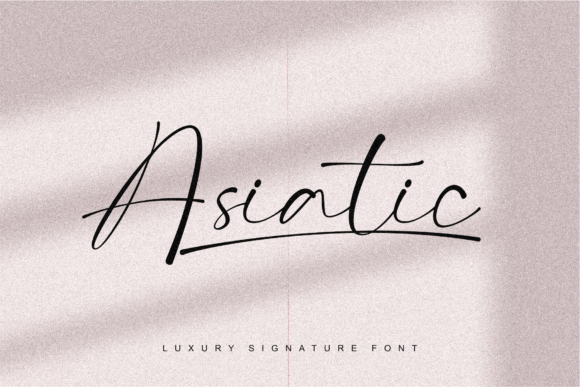
The Elegance of Asiatic Signature Script Font: A Designer’s Delight
I still remember the time I was working on a wedding invitation project, and my client asked for a font that exuded elegance and sophistication. I scoured the internet, tried out countless fonts, but nothing seemed to fit the bill. That’s when I stumbled upon the Asiatic Signature Script Font. It was love at first sight! 💕
Asiatic Signature Script is a stylish and incredibly elegant script font that has become a staple in my design toolkit. It looks stunning on wedding invitations, thank you cards, quotes, greeting cards, logos, business cards, and every other design that needs a handwritten touch.
• ✨ Elegant and sophisticated design that’s perfect for high-end projects
• 🌈 Beautifully crafted to add a touch of personality to any design
• 🤔 Limited availability of certain characters, such as ligatures and diacritical marks
• ⚠️ May require manual kerning for optimal results
The Designer Inspiration Behind Asiatic Signature Script Font
Asiatic Signature Script Font was inspired by the beauty of handwritten calligraphy. The designer, who wishes to remain anonymous, spent countless hours perfecting the font’s elegant strokes and flourishes. The result is a font that’s both sophisticated and approachable, perfect for a wide range of design projects.
A: Asiatic Signature Script Font is best used for designs that require a touch of elegance and sophistication, such as wedding invitations, thank you cards, and quotes.
A: While Asiatic Signature Script Font is highly legible, it’s best used for headings and titles rather than body text.